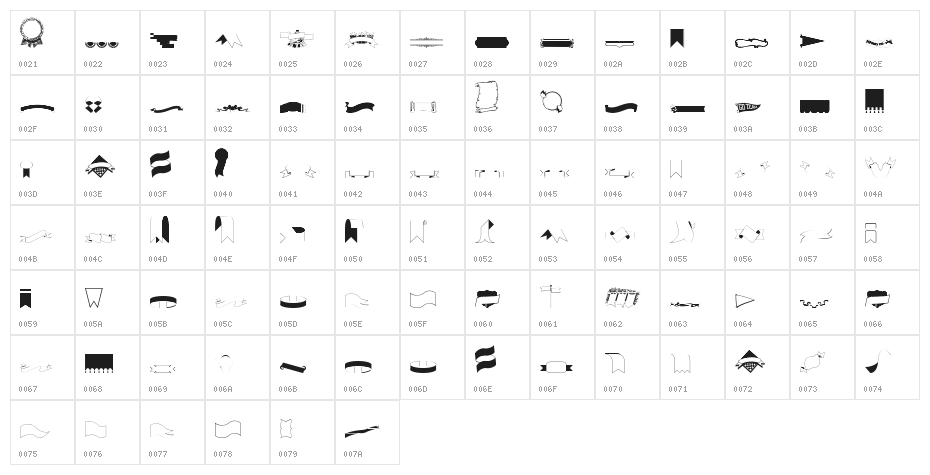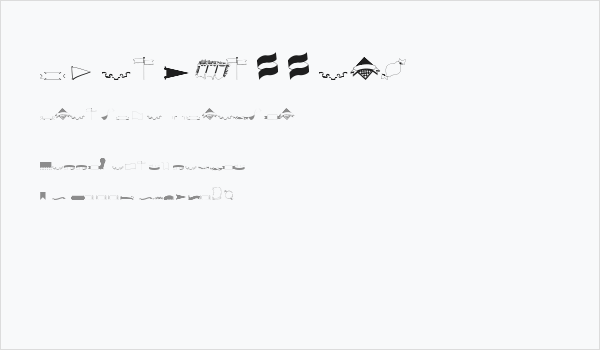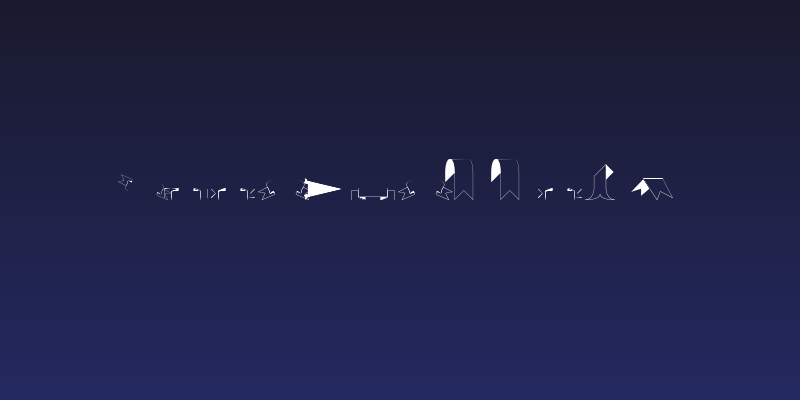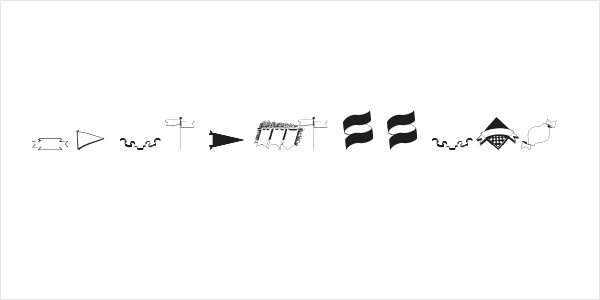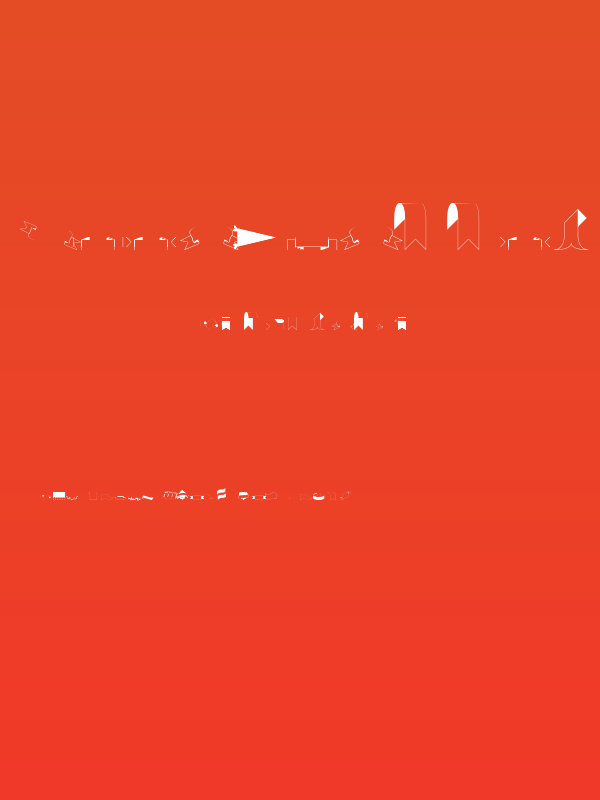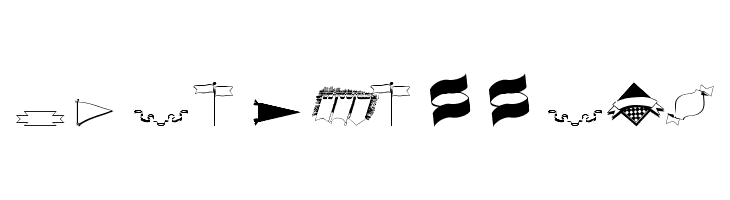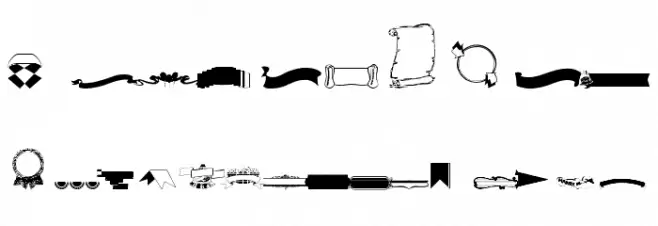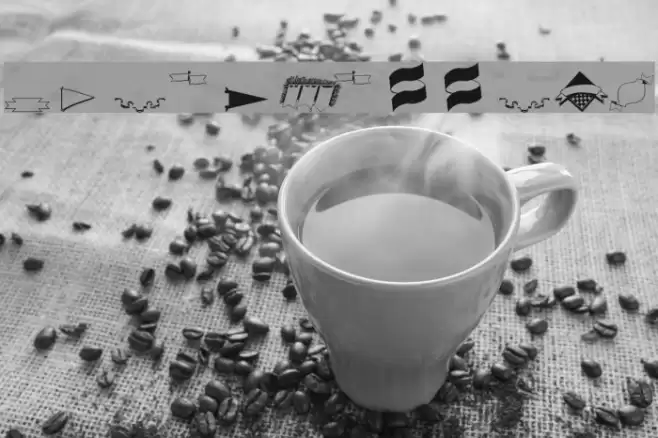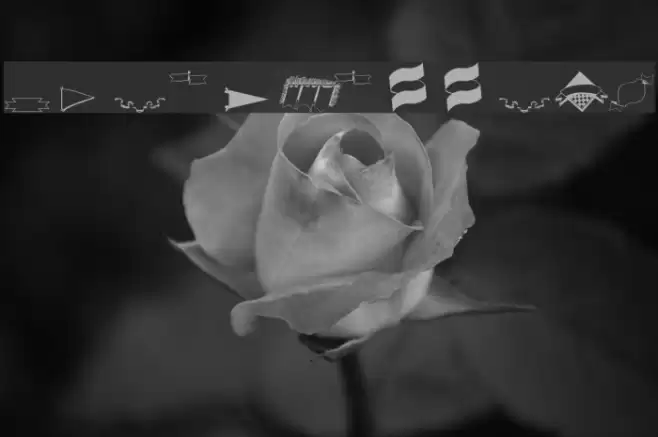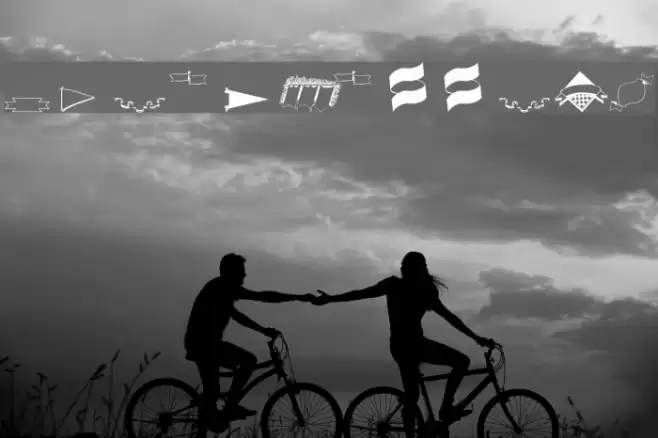
idea-banners Font
| Gesamtstil | Decorative, playful, and illustrative |
| Anwendungsfall | Decorative elements, embellishments, graphic design accents |
| Vorgeschlagene Projekte | Event invitations, certificates, posters, scrapbooking, web graphics, logo accents, and decorative headings. |